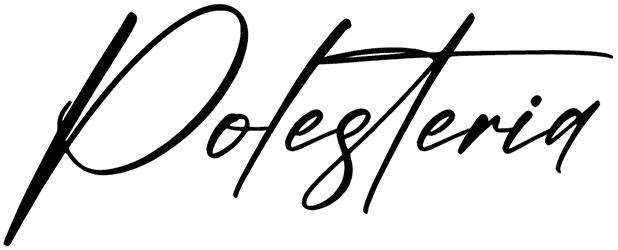
Polesteria Font
With a contemporary and casual face, you can beautify various projects and subjects. As a handwritten font, Polesteria consists of a ravishing pen-lettered style that has a modern vibe. This signature font supports full characters and is an ace choice for a lot of projects, namely planners, invitations, posters, logos, and the like.